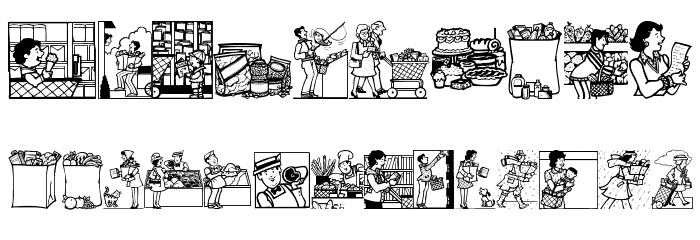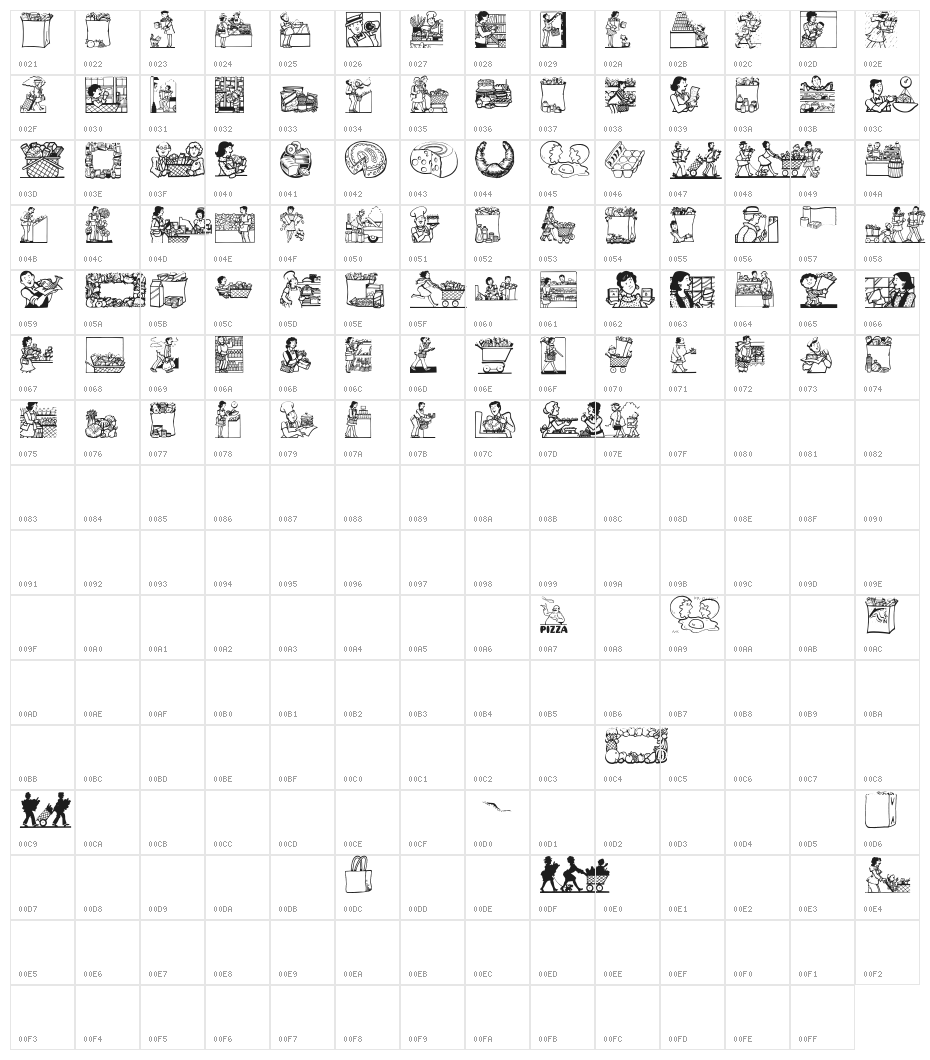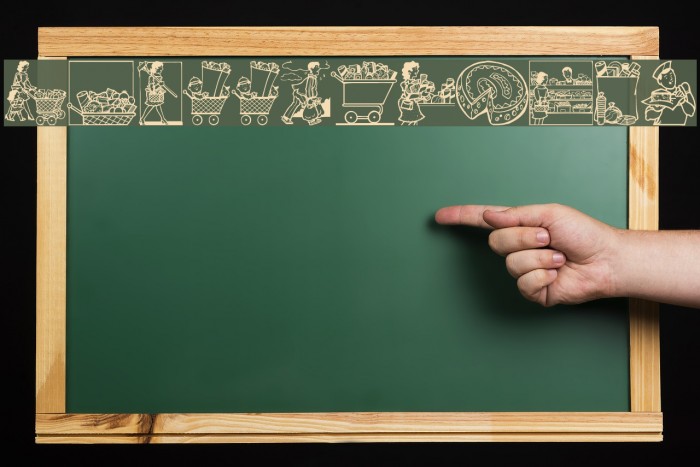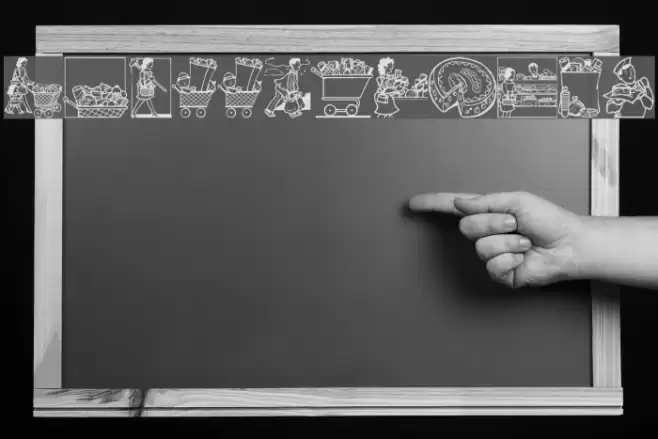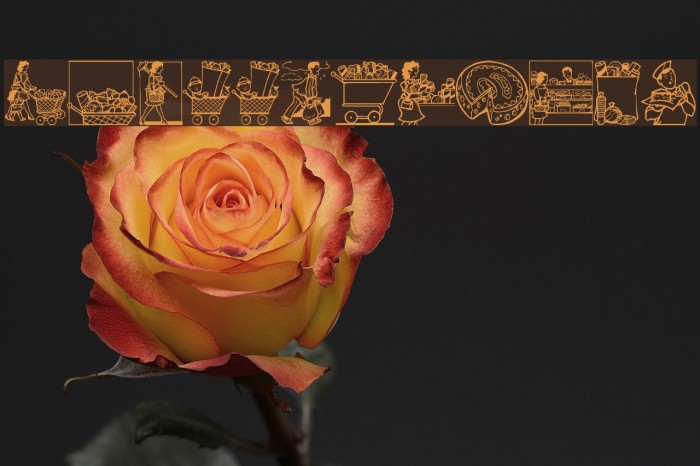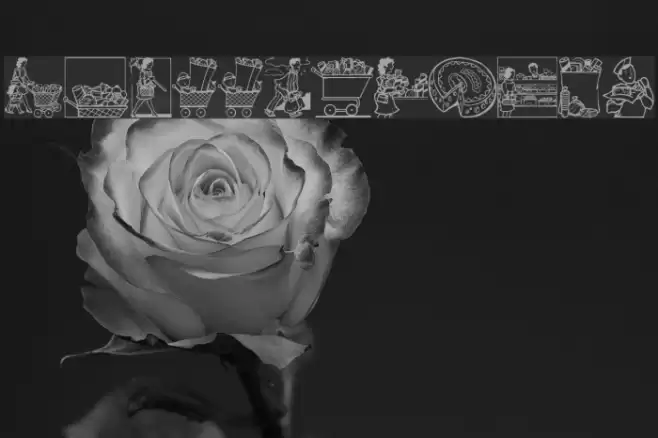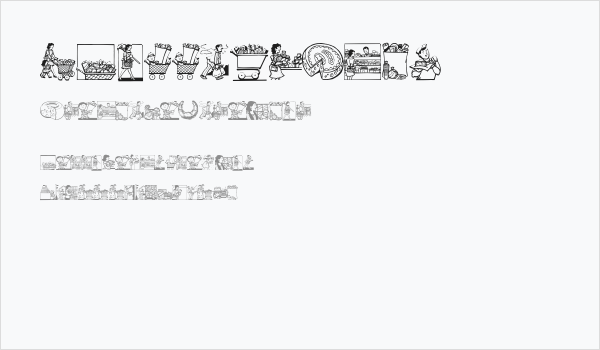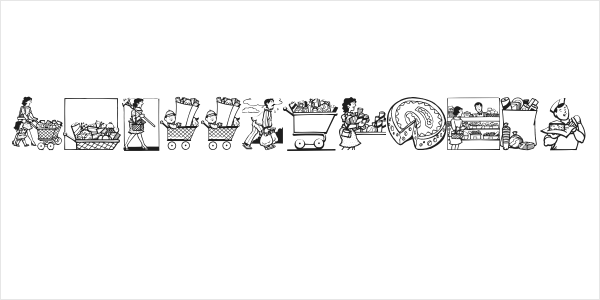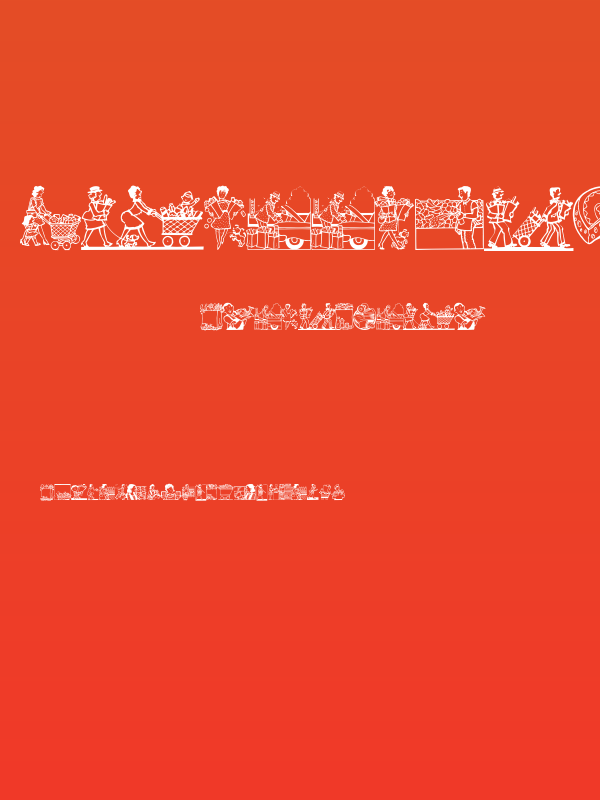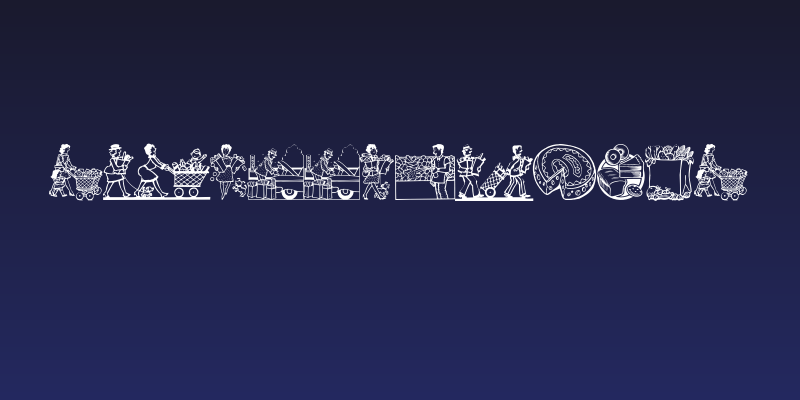
ShoppingBats Font
ShoppingBats Description
This is a decorative font featuring a series of playful and detailed illustrations related to shopping and grocery themes. Each character is represented by a unique image depicting various shopping activities, such as people pushing carts, carrying bags, and interacting with store items. The illustrations are intricate, capturing a vintage and whimsical style that adds a narrative element to the text. This font is not designed for traditional text but rather for creative projects where each character can stand alone as a piece of art. The images are monochrome, allowing for easy integration into various design contexts.
| Overall Style | Vintage, Whimsical |
| Use Case | Logos, Posters, Decorative elements |
| Proposed Projects | Ideal for creative projects like greeting cards, posters, or themed event invitations where a playful and illustrative touch is desired. |